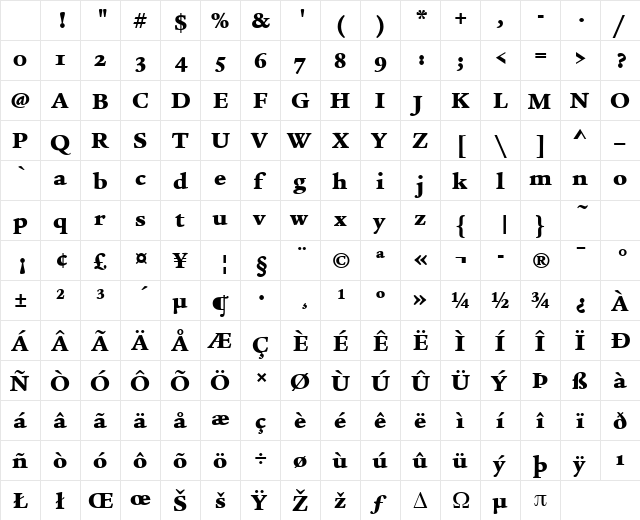
Complete Legacy Serif Md OS ITC TT Ultra glyph index. Displaying only characters natively supported by Legacy Serif Md OS ITC TT Ultra font.
Legacy Serif Md OS ITC TT carries the refined structure of traditional serif typography, with bracketed terminals and considered proportions that communicate credibility and craft.